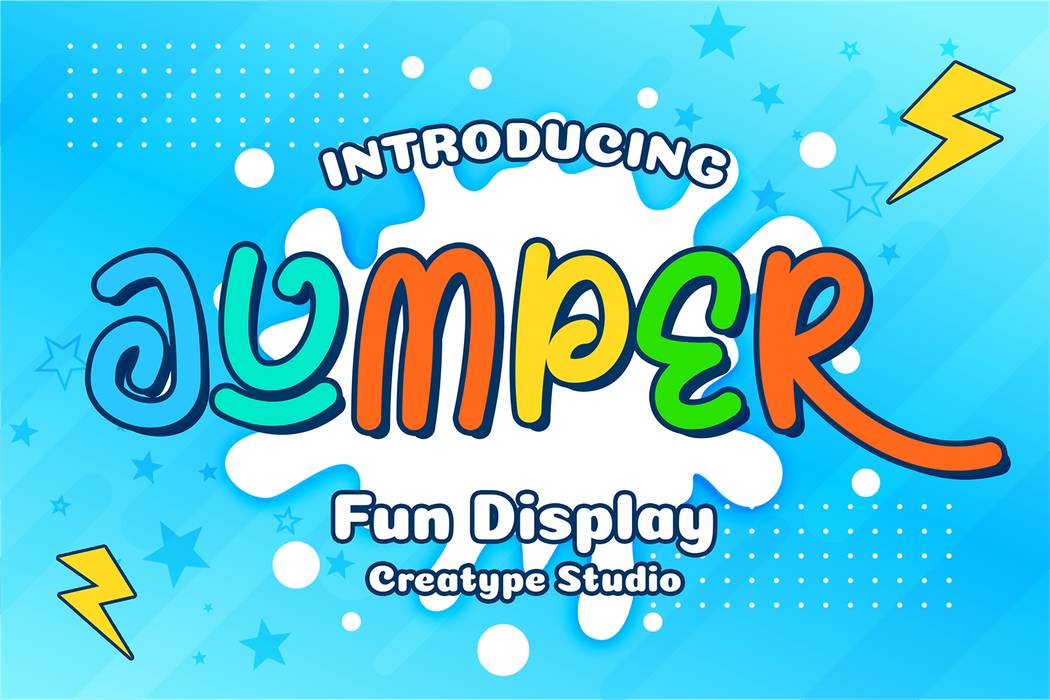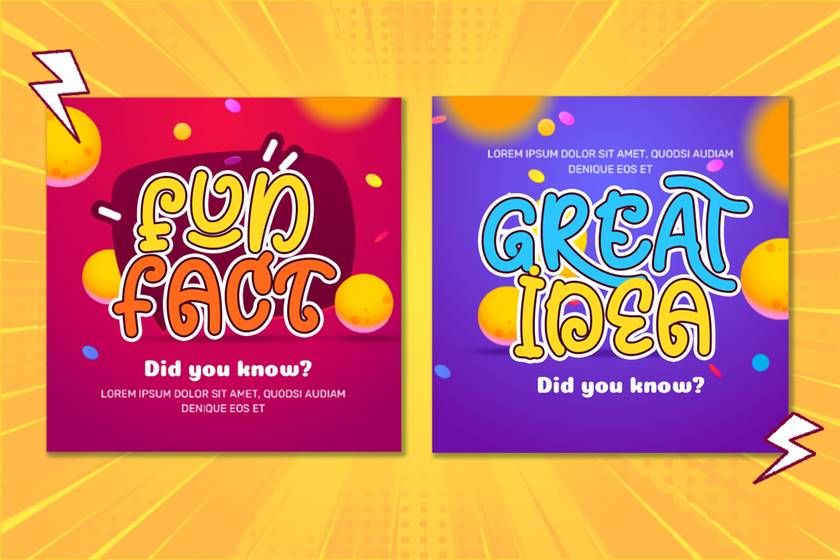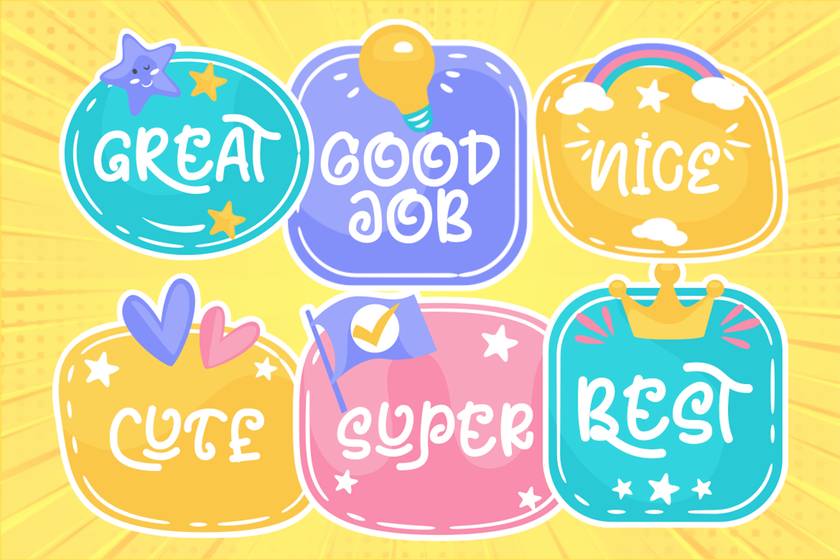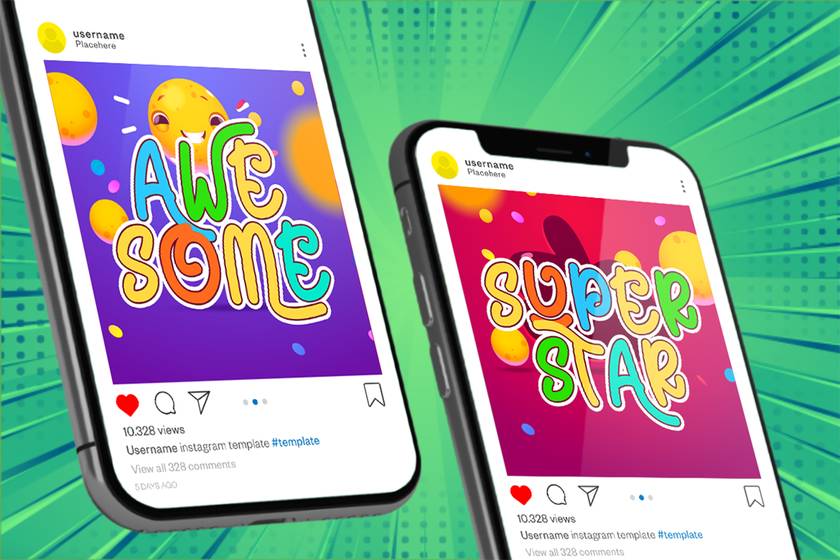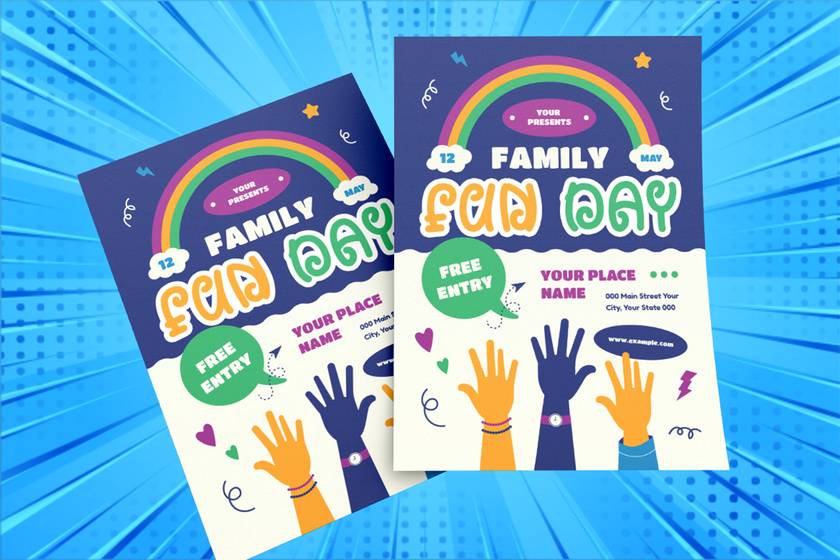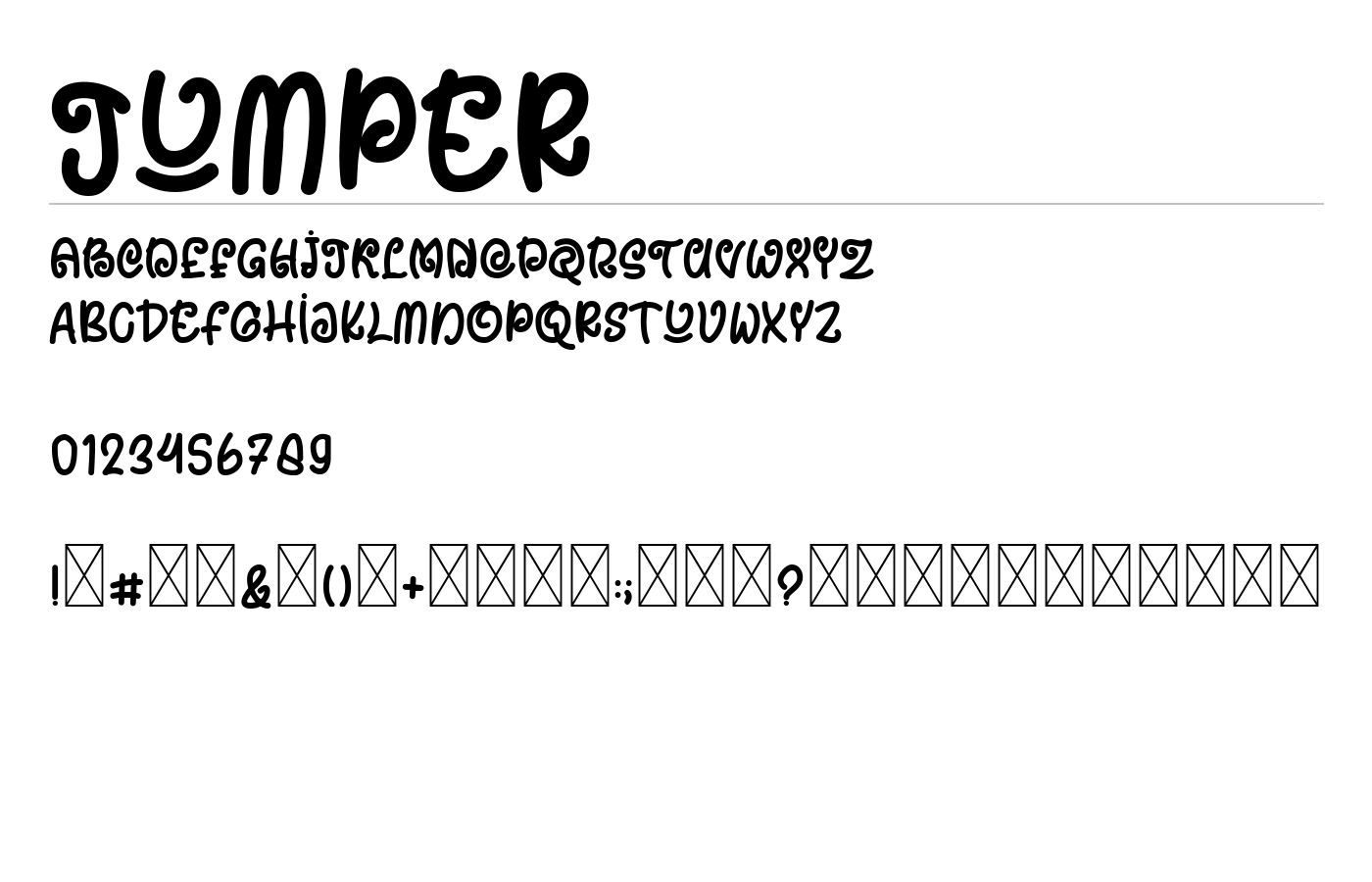
Jumper is a playful, bold sans serif font with quirky, rounded letterforms that give it a friendly and casual vibe. Its unique, slightly condensed shapes and uniform stroke weight make it perfect for fun, eye-catching headlines, logos, and creative projects that want to convey warmth and personality. This font works well in informal branding, children’s materials, and any design needing a lively, approachable style.
Jumper Font
| Designer | Mikro Type Std |